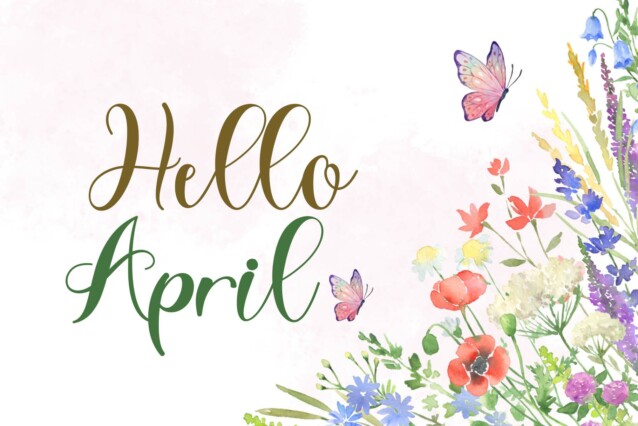
Spring Style Script Font
Spring Style Script Font is a charming handwritten typeface exuding sweetness and freshness. Its playful strokes and organic flow evoke a sense of warmth and affection, ideal for conveying heartfelt messages on greeting cards, posters, and social media graphics. Spring Style adds a delightful touch to any design project.